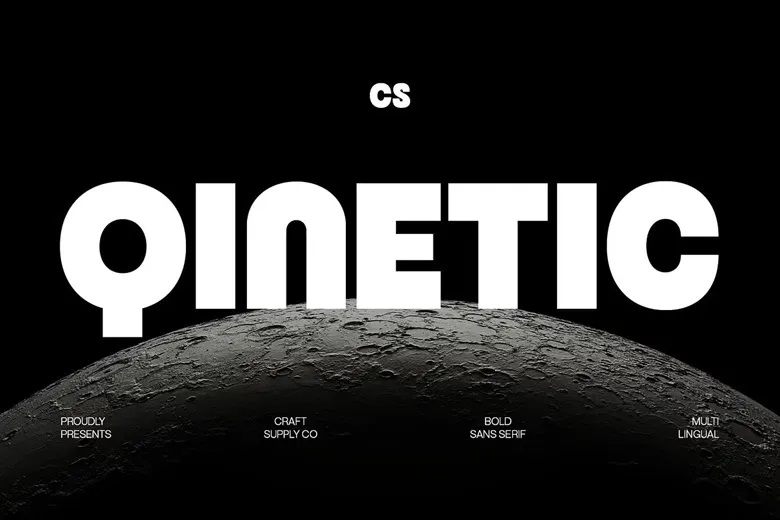
CS Qinetic Font
CS Qinetic is a contemporary, bold, geometric, and clean sans serif typeface. Its organized forms express confidence and accuracy, and it is very readable and provides a powerful visual impact. CS Qinetic was created with modern aesthetics in consideration, which is why it is a combination of modern geometry and clean lines, which makes the typeface feel professional and dynamic. It is bold enough to make each word authoritative and clear.
Ideal in projects that require contemporary power and elegance, CS Qinetic is a master of branding, posters, logos, digital design, and editorial layouts. Its pure geometric shapes are versatile in both print and digital media and give it a unified and refined appearance.
CS Qinetic Sans Serif Font